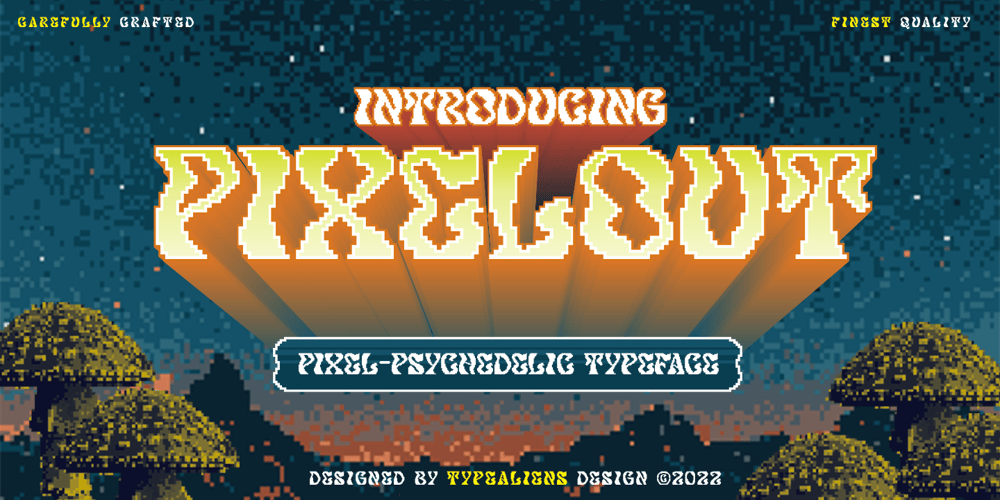
Pixelout Font Family was designed by Ilham Wahyu and published by Ilhamtaro. Pixelout contains 1 styles and family package options. PIXELOUT is a display font based on bold serifs combined with a psychedelic style and given a low pixel effect like in a game. With its pixelated stroke characteristics, this font is perfect for different or unique designs such as in games or for bands and music event posters.The uniqueness of this font is psychedelic-pixel, it can be categorized as a vintage font because usually old school games use this style plus it can be used for bands because psychedelic is also found in one genre of music.To enable the OpenType Stylistic alternates, you need a program that supports OpenType features such as Adobe Illustrator CS, Adobe Indesign & CorelDraw X6-X7.Cheers!